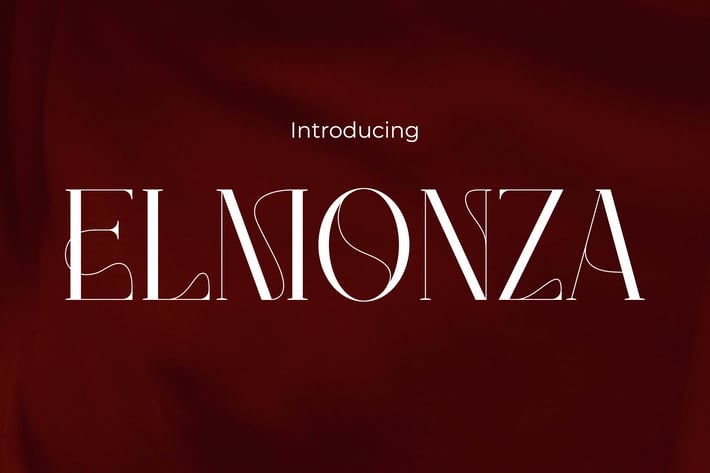
Elmonza - Modern Elegance and Beauty Font
ELMONZA – Elegant High Contrast Display
ELMONZA is a luxury display typeface with long vertical proportions, sharp terminals, and dramatic contrast—crafted for elegant editorial layouts and fashion-forward branding. Its sleek, stylish silhouette creates immediate visual tension, blending timeless serif grace with bold modern flair. ELMONZA’s high contrast and distinct letter shapes give each word runway-ready sophistication, ideal for projects that demand refined attention.
Whether you're designing a high-fashion lookbook, perfume packaging, or social banners for a lifestyle brand, ELMONZA gives your message a striking, upscale voice. This typeface evokes emotion, evokes power, and enhances presence—making it an essential tool for designers aiming to capture luxury, femininity, and editorial drama in one stylish stroke.
Key Features :
Fashion-Inspired Elegance
Inspired by haute couture typography and editorial aesthetics.
High Contrast for High Impact
Ideal for large display usage where clarity and drama are essential.
Versatile for Upscale Markets
Great for fashion, cosmetics, weddings, magazines, and elegant branding campaigns.